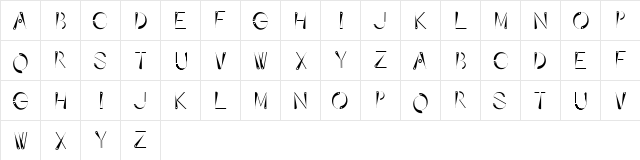
Affixed Regular
Design Context for Affixed Typeface
Affixed is a composed and adaptable typeface that performs quietly and consistently across a wide range of design contexts.